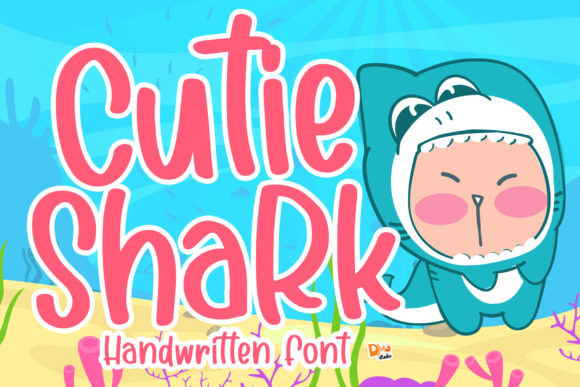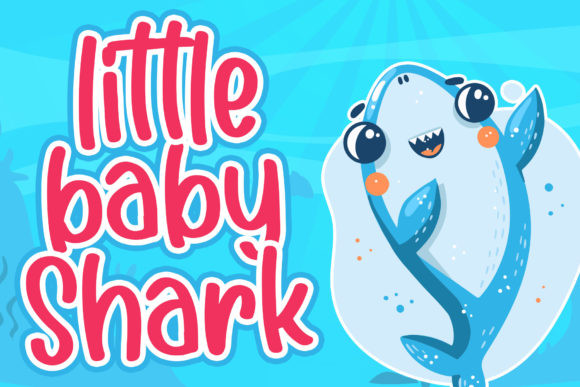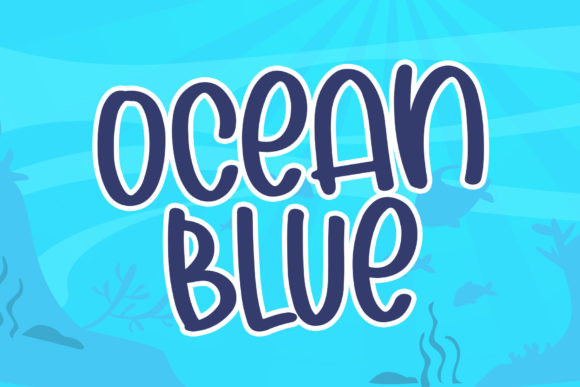
Cutie Shark Font
Cutie Shark embodies fun, quirkiness and authenticity. This enchanting handwritten font will turn any creative idea into a true standout. It will elevate a wide range of design projects to the highest level, be it branding, headings, wedding designs, invitations, signatures, logos, labels, and much more!